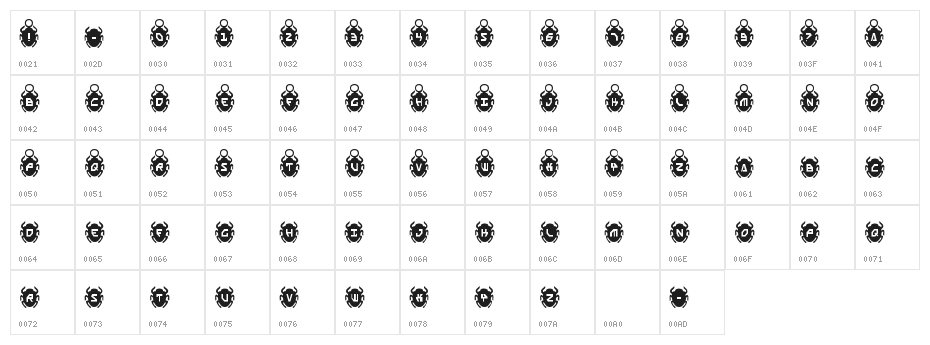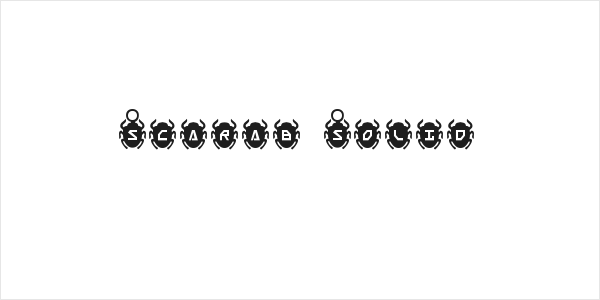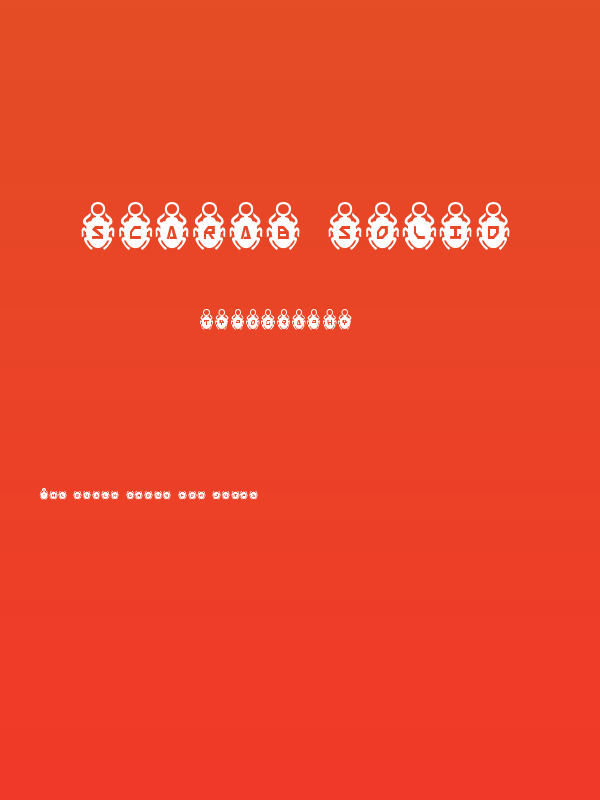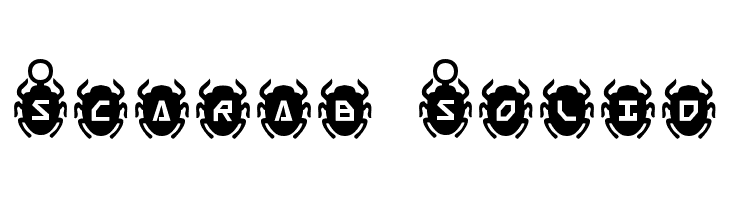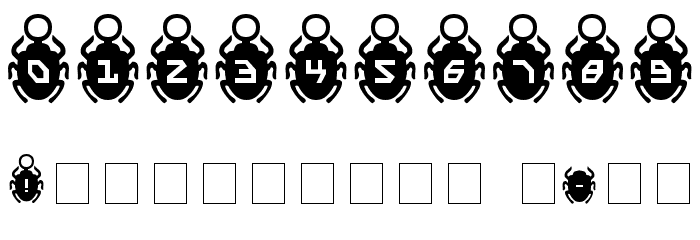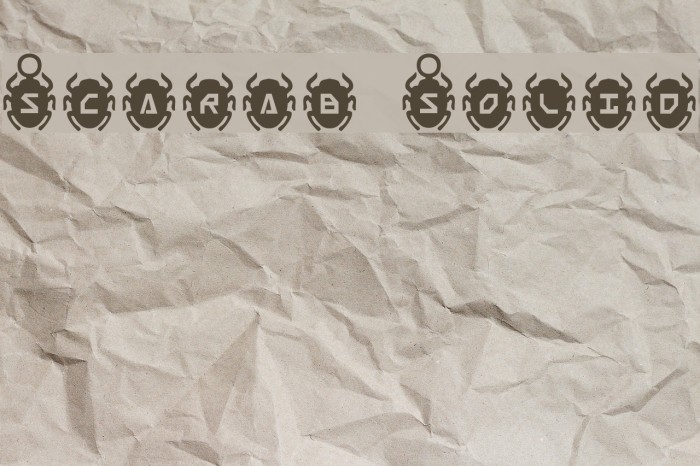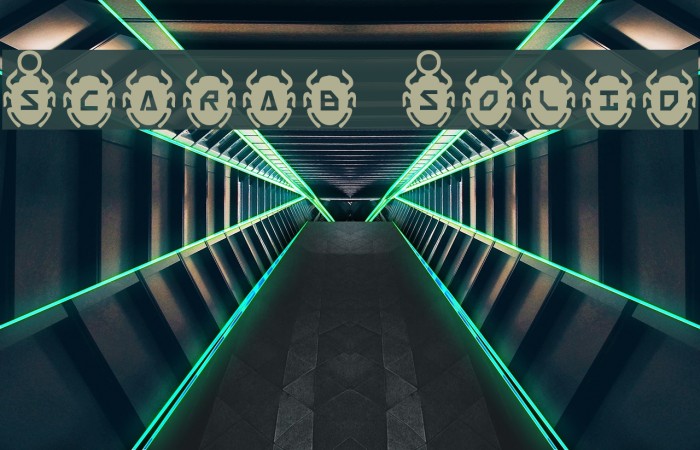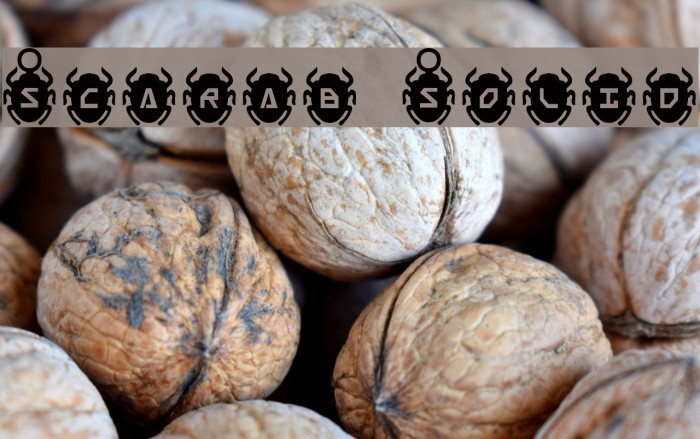
Scarab Solid Font
Scarab Solid Description
This font features a unique and creative design where each character is encapsulated within a stylized scarab beetle shape. The letters and numbers are bold and prominent, providing a striking contrast against the intricate beetle outline. The design is highly decorative, making it ideal for projects that require a distinctive and artistic touch. The characters are evenly spaced within their beetle frames, ensuring readability while maintaining the decorative aspect. This font is perfect for thematic designs, especially those related to ancient cultures, nature, or fantasy themes.
| Use Case | Logos, Posters, Artistic Branding |
| Proposed Projects | Ideal for themed posters, fantasy book covers, event invitations, and artistic branding. |